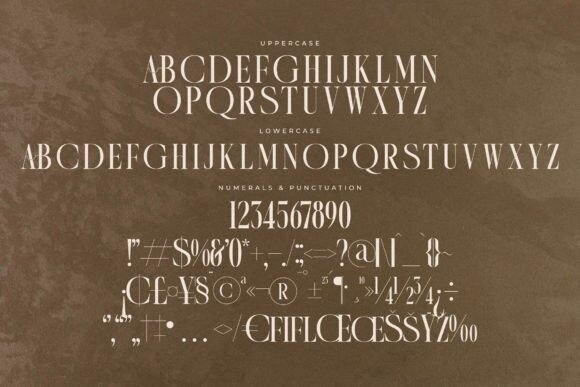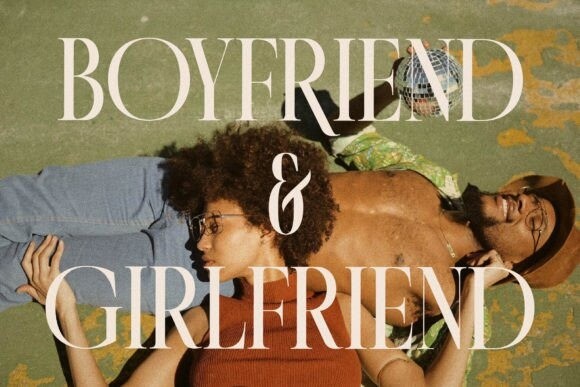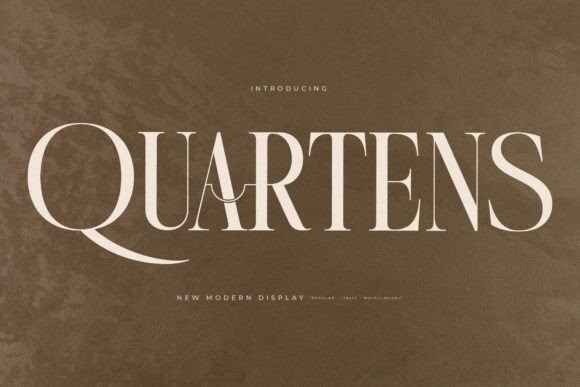
Quartens Font
Quartens Font a serif modern and classic typeface that has its own unique style & modern look.
This typeface is perfect for an elegant & luxury logo, book or movie title design, fashion brand, magazine, clothes, lettering, quotes, and so much more.